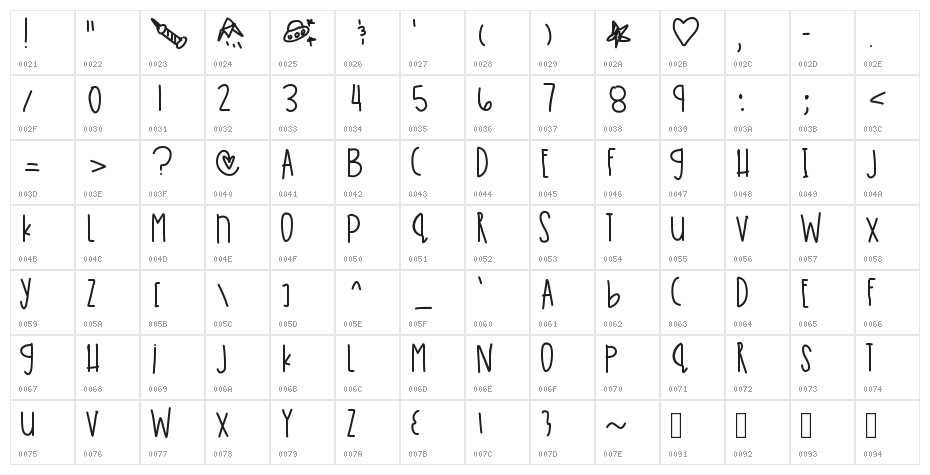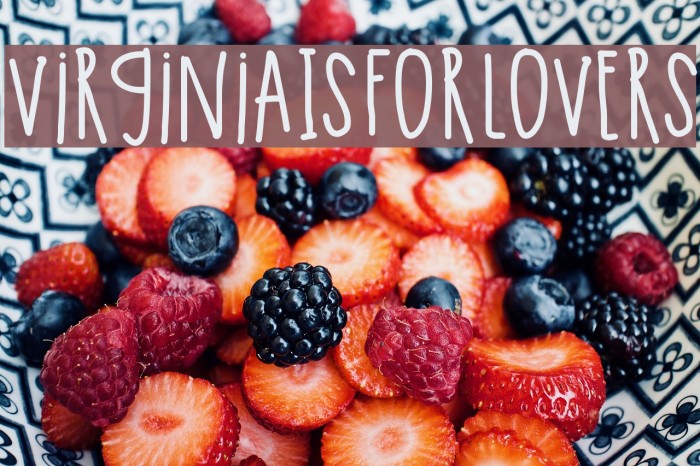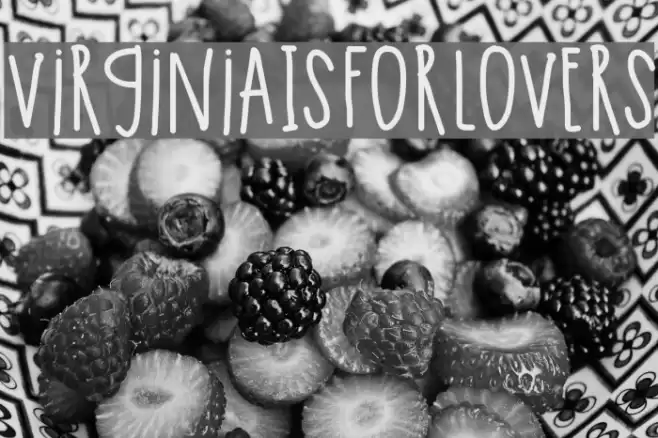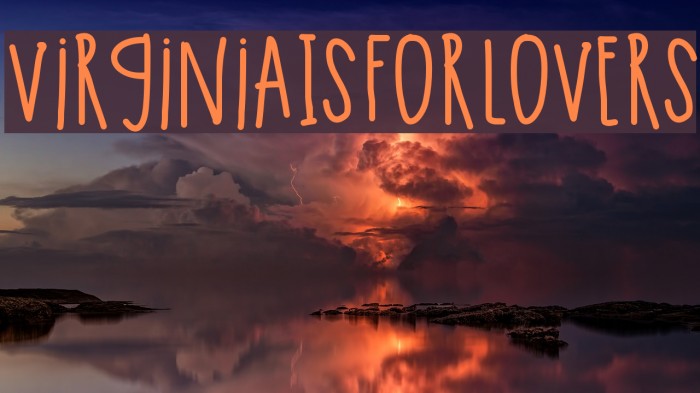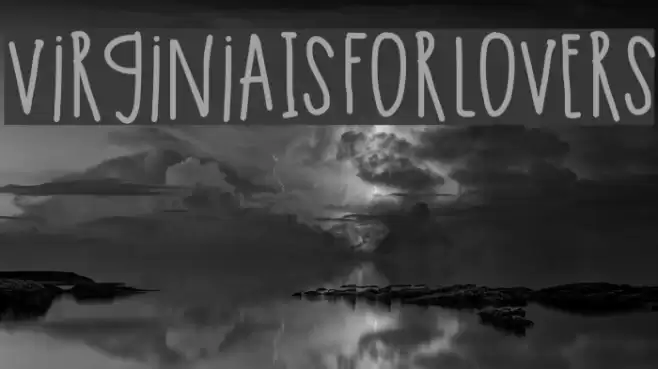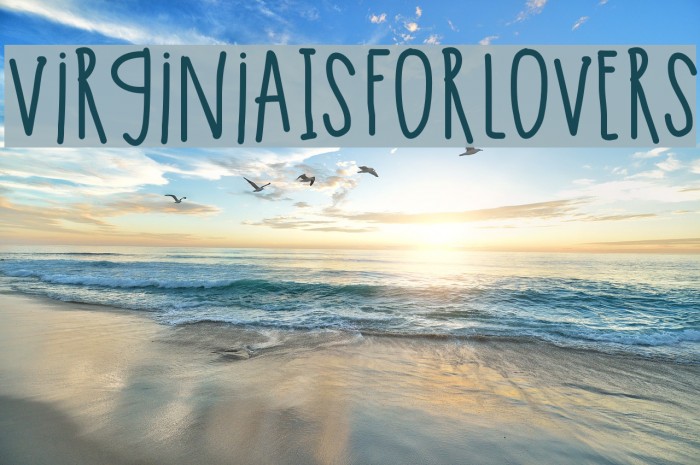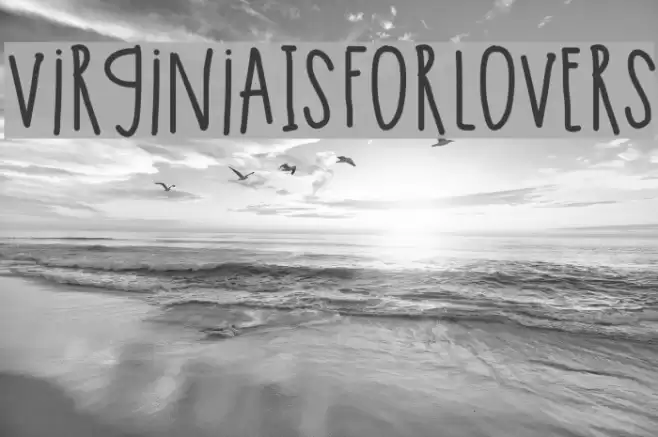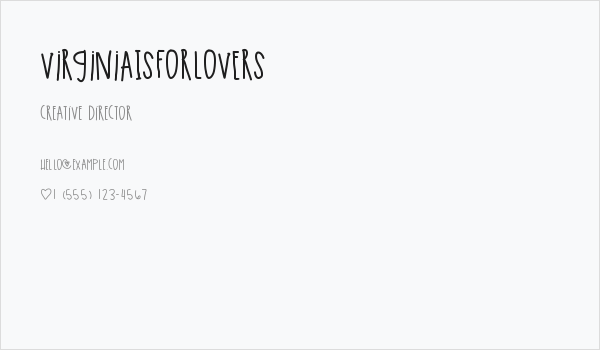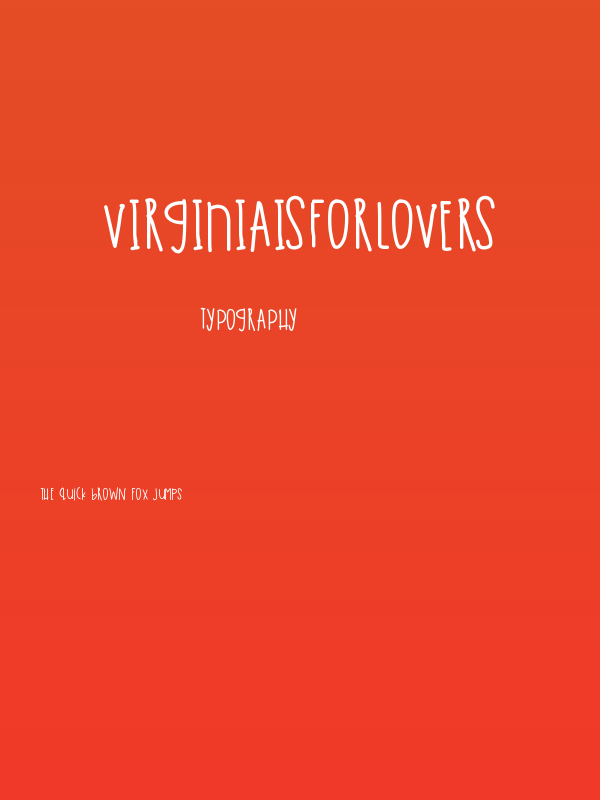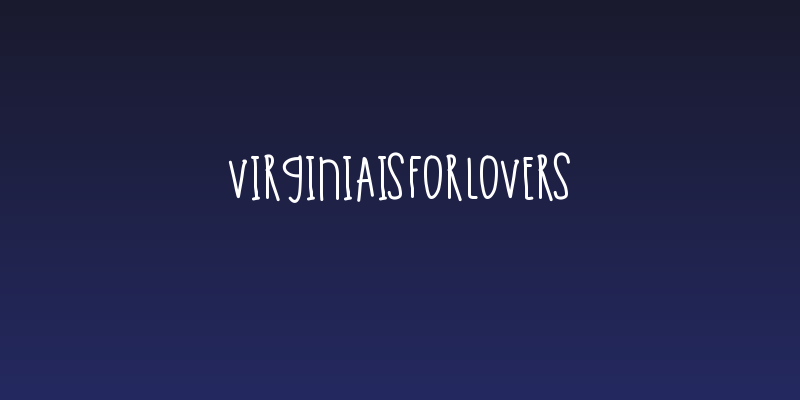
VirginiaIsForLovers Font
VirginiaIsForLovers Description
This playful and quirky handwritten font features tall, narrow characters with a casual and friendly appearance. The letters are slightly irregular, adding a whimsical touch to the overall design. The uppercase and lowercase letters maintain a consistent style, with rounded edges and a smooth flow. The numbers are similarly styled, ensuring a cohesive look across all characters. Special characters are included, each with a unique and creative design that complements the font's playful nature.
Overall StylePlayful
Use CaseHeadlines, Logos, Creative projects
Proposed ProjectsIdeal for children's books, greeting cards, playful branding, and creative projects that require a friendly and approachable feel.